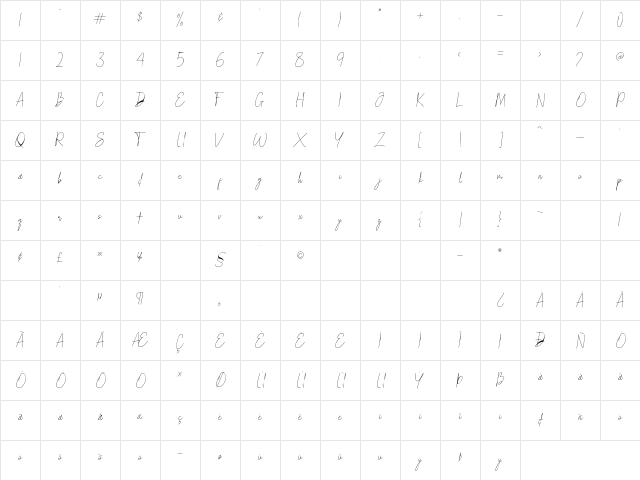
monopente Regular Free Font
monopente Regular
Designer: Muhammad Isa Sulaiman
Design Context for monopente
monopente uses fixed-width spacing throughout, giving it the structured, systematic character associated with coding environments and technical documentation.
Pro Tip: Use monopente with slightly increased line-height for extended reading - fixed-width spacing can feel dense in longer passages without extra breathing room.